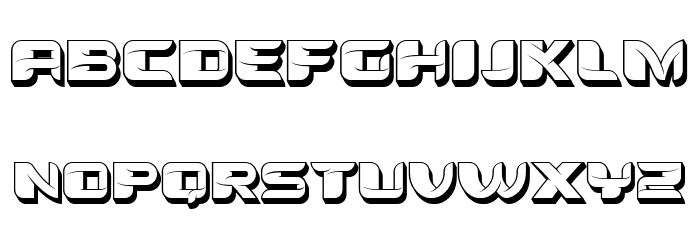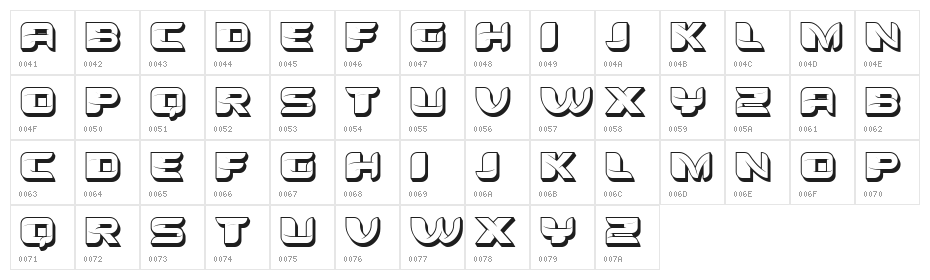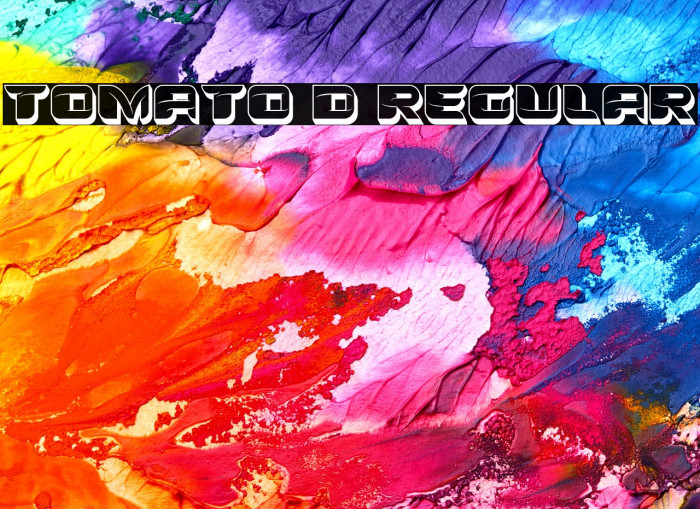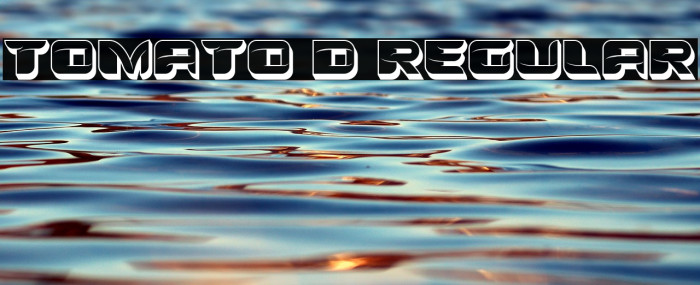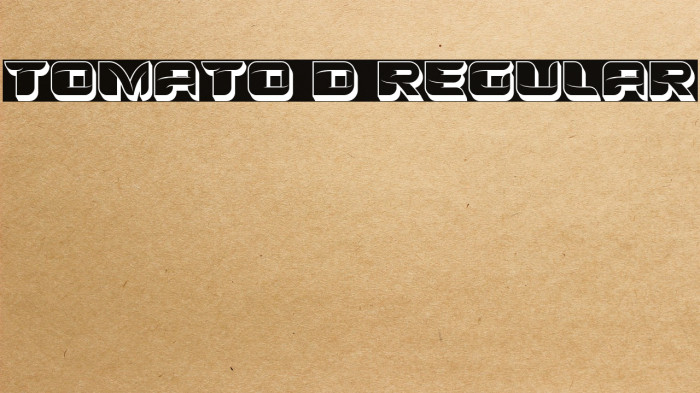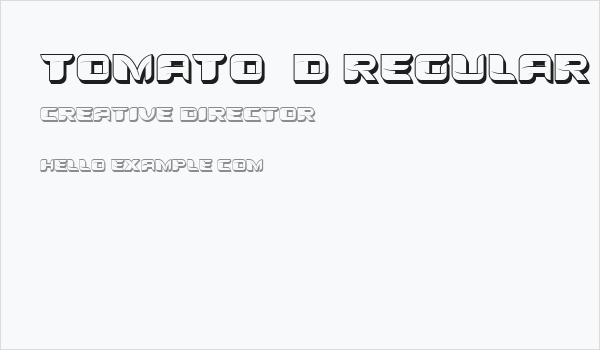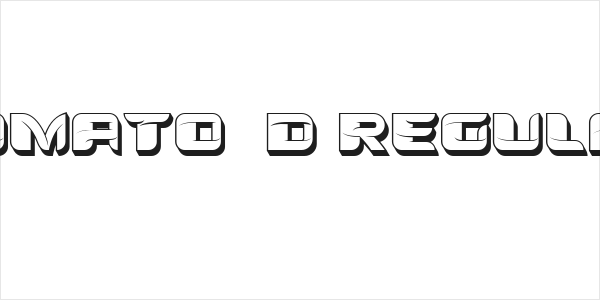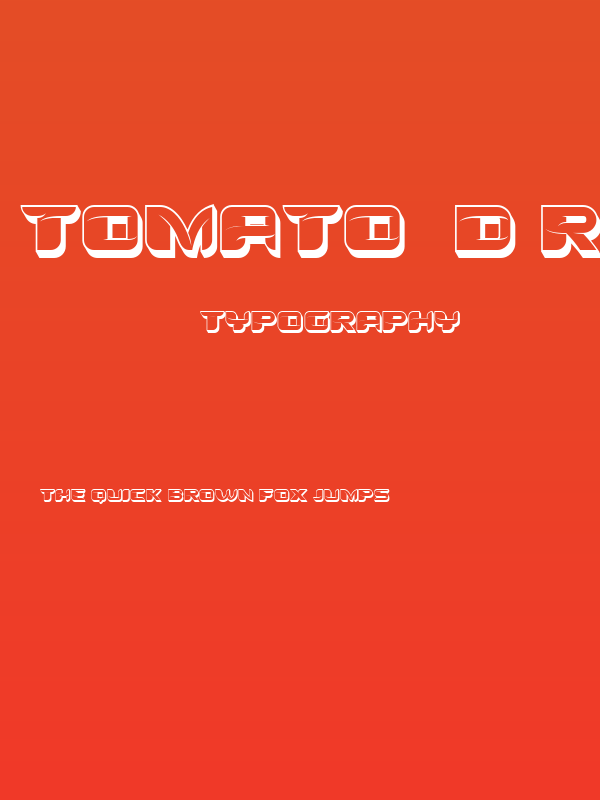
Tomato 3D Regular Font
Tomato 3D Regular Description
This font features a bold, three-dimensional appearance with a distinct shadow effect that gives it a striking and modern look. The characters are blocky and geometric, with sharp angles and clean lines that contribute to its futuristic aesthetic. The 3D effect is achieved through a clever use of shading, creating a sense of depth and dimension. This style is particularly eye-catching and is designed to stand out, making it ideal for attention-grabbing headlines or titles. The uppercase letters are uniform in height, and the overall design is consistent across the alphabet, ensuring a cohesive look.
| Proposed Projects | Ideal for use in digital media, video game titles, posters, and branding that requires a modern and impactful look. |